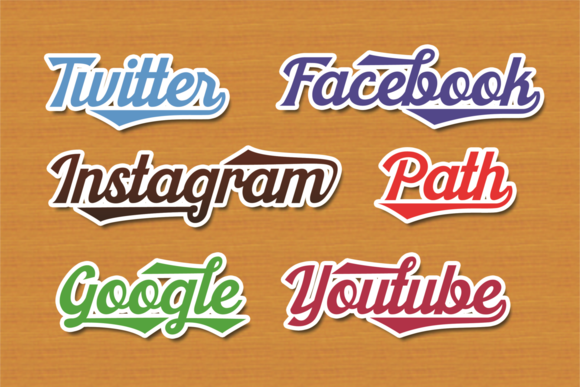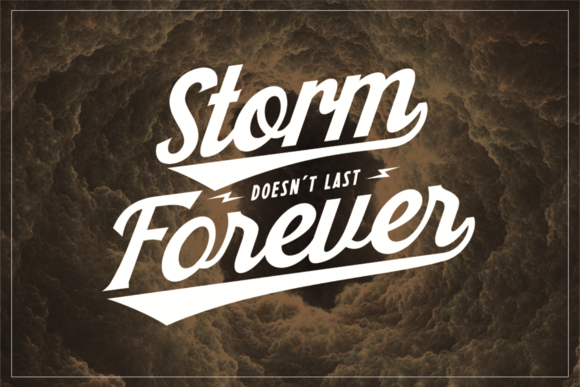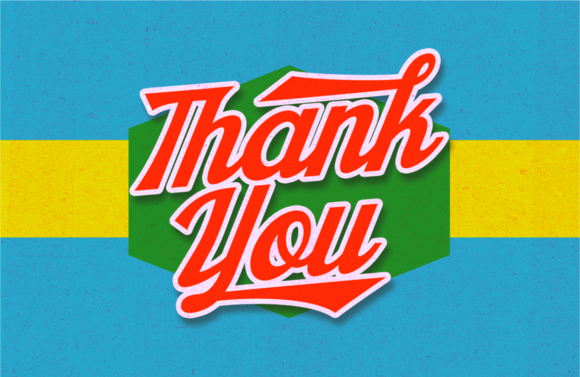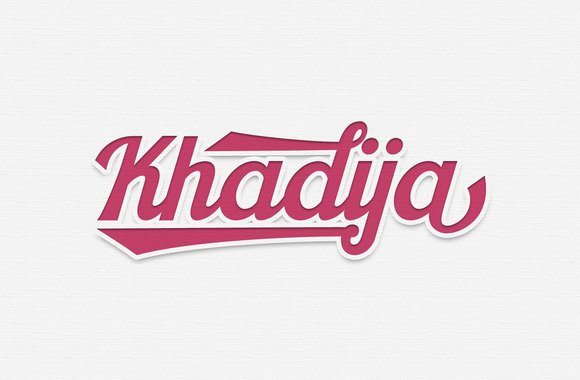
Introduction to Khadija Script Font
This beautiful typeface can be used for various purposes such as headings, logos, posters, book covers, mugs, bags, newspapers, invitations, and much more.
OT Features; Swash, Stylistic Alternates, Replacement Glyphs, Contextual Alternates, Standard Ligature, and More .
Khadija Script Font offers exceptional quality and versatility, making it a valuable addition to your design toolkit. Whether you’re creating for personal projects or commercial use, Khadija Script Font delivers professional results.